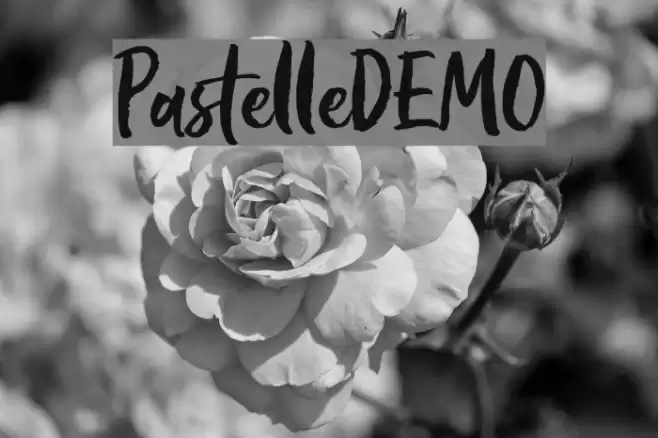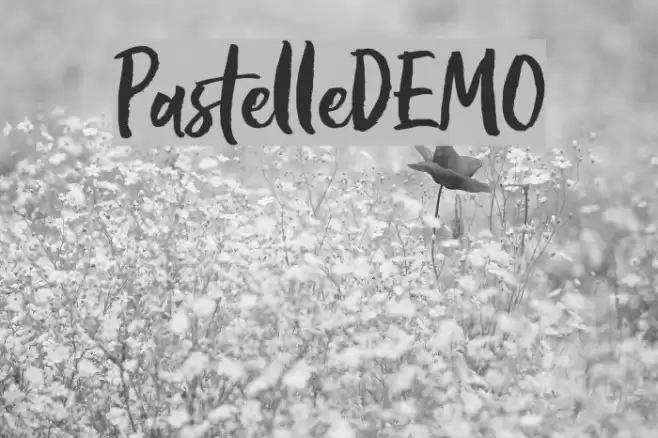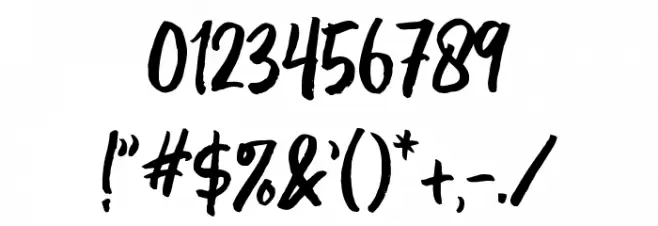
PastelleDEMO Font
PastelleDEMO Description
This font exudes a lively and artistic flair, characterized by its brush-like strokes and dynamic flow. The uppercase letters are bold and assertive, while the lowercase letters maintain a playful and casual demeanor. The numerals are consistent with the overall style, offering a cohesive look. Special characters are creatively integrated, enhancing the font's versatility. The overall appearance is reminiscent of hand-painted signage, making it ideal for projects that require a personal touch.
A vibrant, brush-style font with a dynamic and artistic flair from Uncategorized fonts.
- Proposed Projects: Ideal for creative projects such as posters, invitations, branding, and packaging that require a personal and artistic touch.